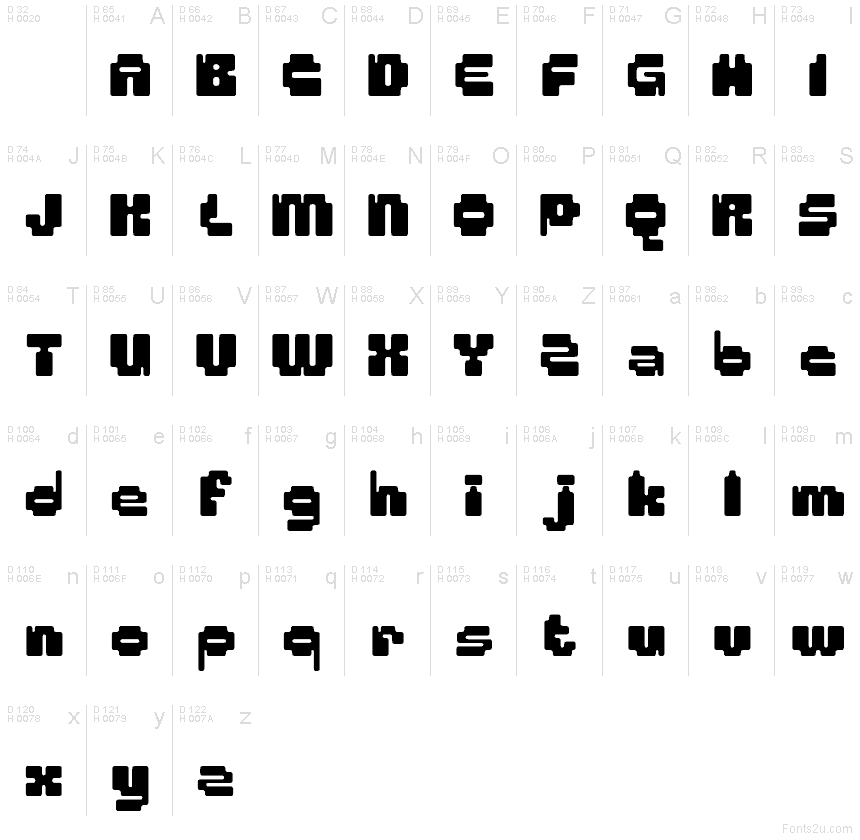
CS Goals Regular Demo
CS Goals font by Craft Supply Co. takes its cue from the sci-fi universe of cyberpunk. The free display font carries special features that reflect this universe, with bold expanded characters that are both simple and symmetrical. Each character presents a futuristic, clear design suitable for projects with modern aesthetic needs or for clients who require strong visual impact.
Logos, business cards, branding designs, etc. are all possible suggestions alongside poster designs and advertisements that can effortlessly be created with CS Goals. Other suggested uses include album covers for artists aiming to take more risks or website/online game headers for a new online presence!